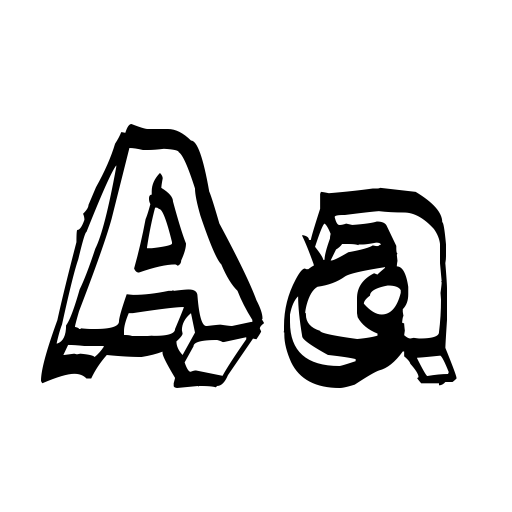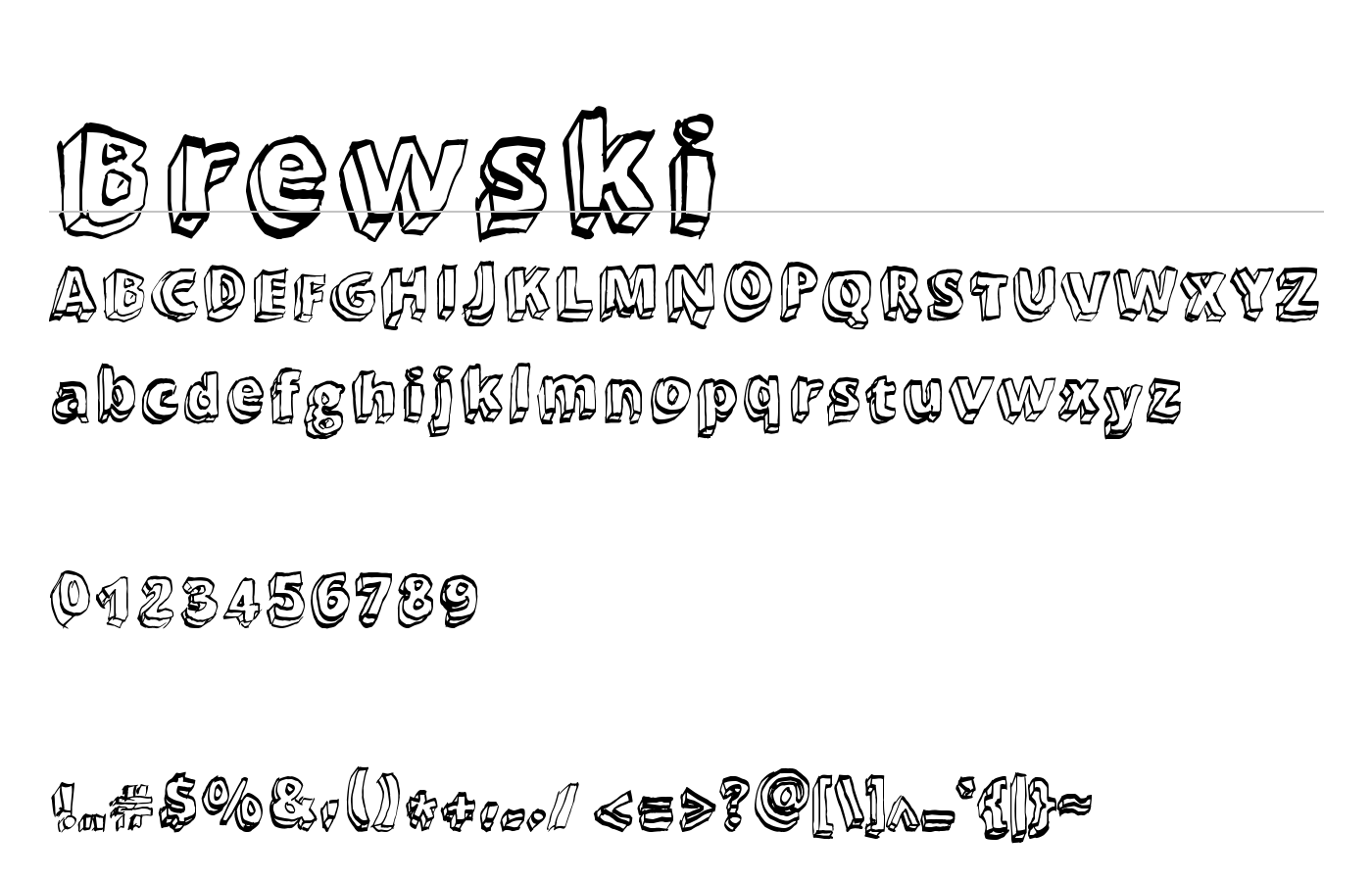
Brewski is a playful and bold sans serif font with a hand-drawn, sketch-like style that gives it a lively and informal character. Its irregular, chunky letterforms with high contrast strokes and quirky details make it perfect for fun, eye-catching headlines, branding, and creative projects that aim to stand out with a casual, energetic vibe. This font works well in designs seeking a unique, handcrafted feel while maintaining strong readability.
Brewski Font
About Brewski Font
| Font family | Brewski Font |
| Designer | Max Infeld - Xerographer Fonts |